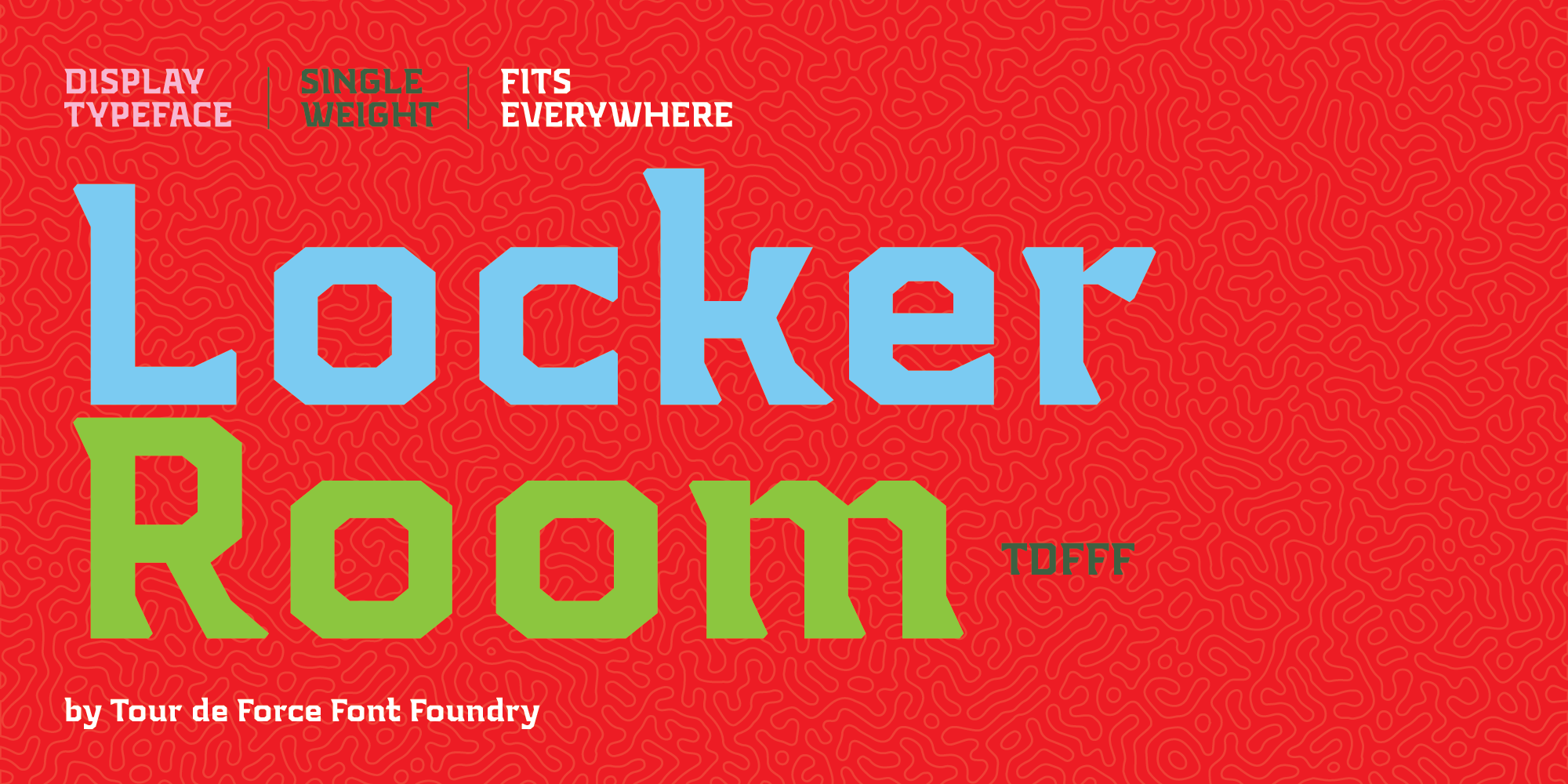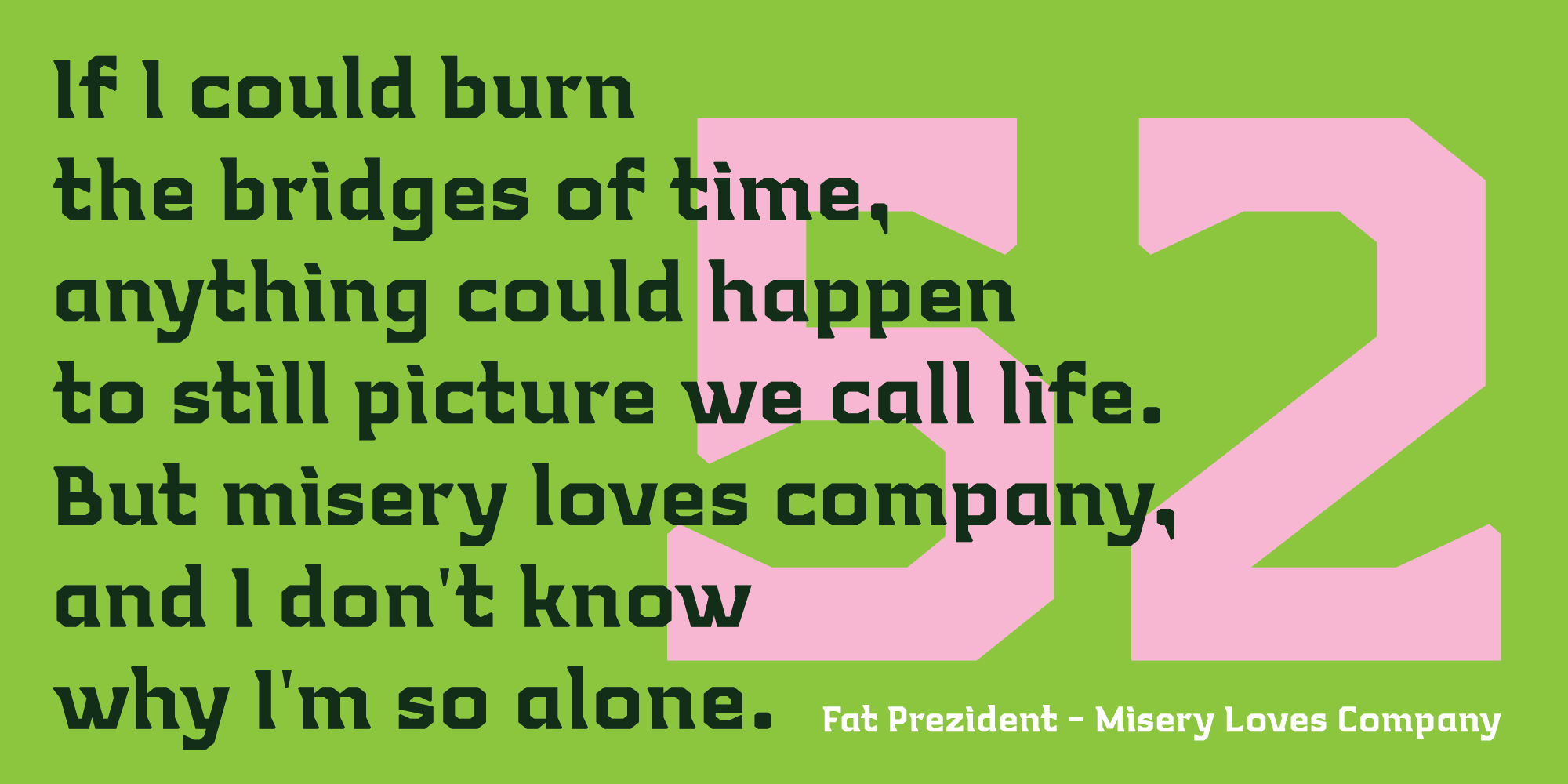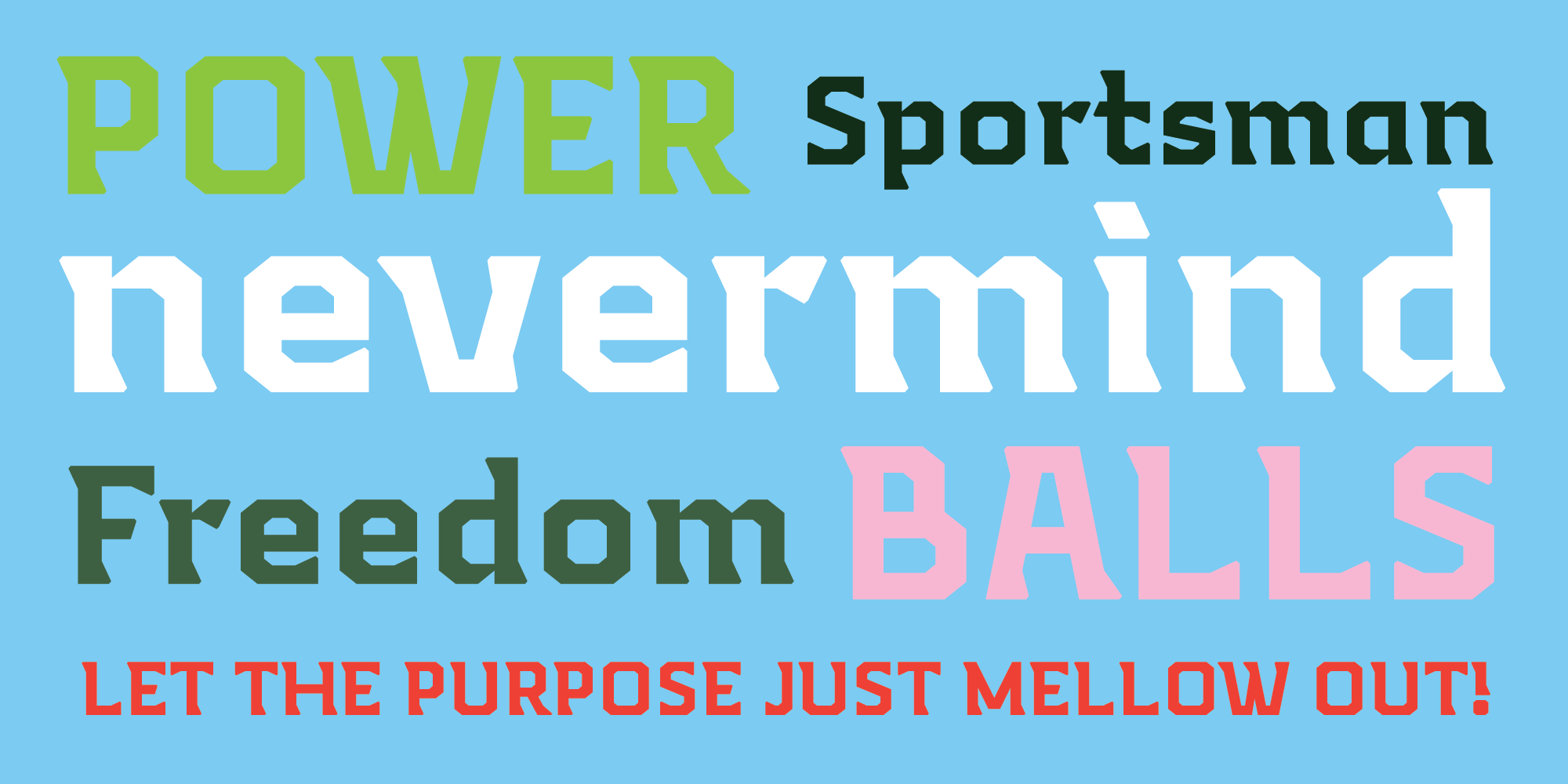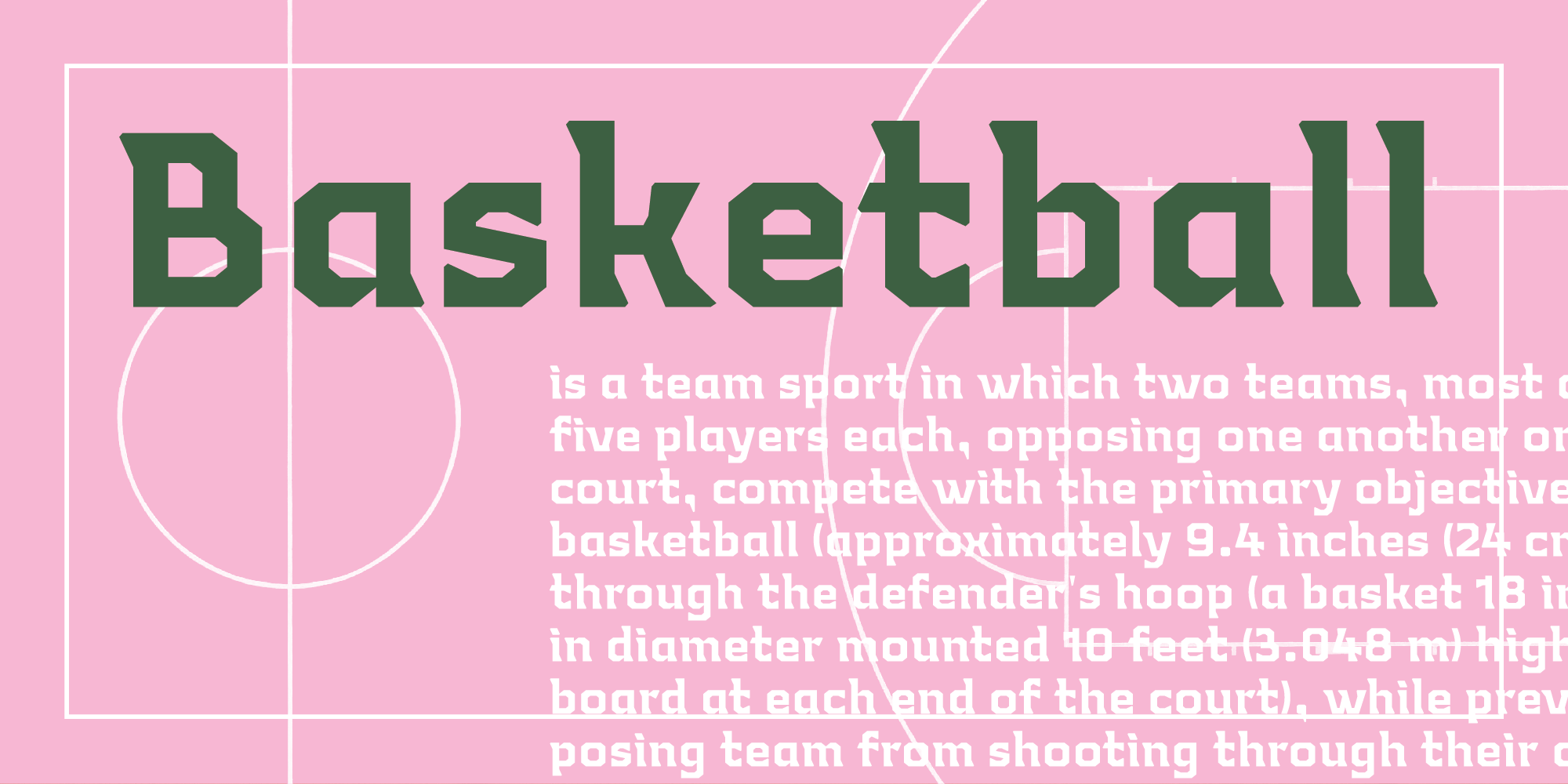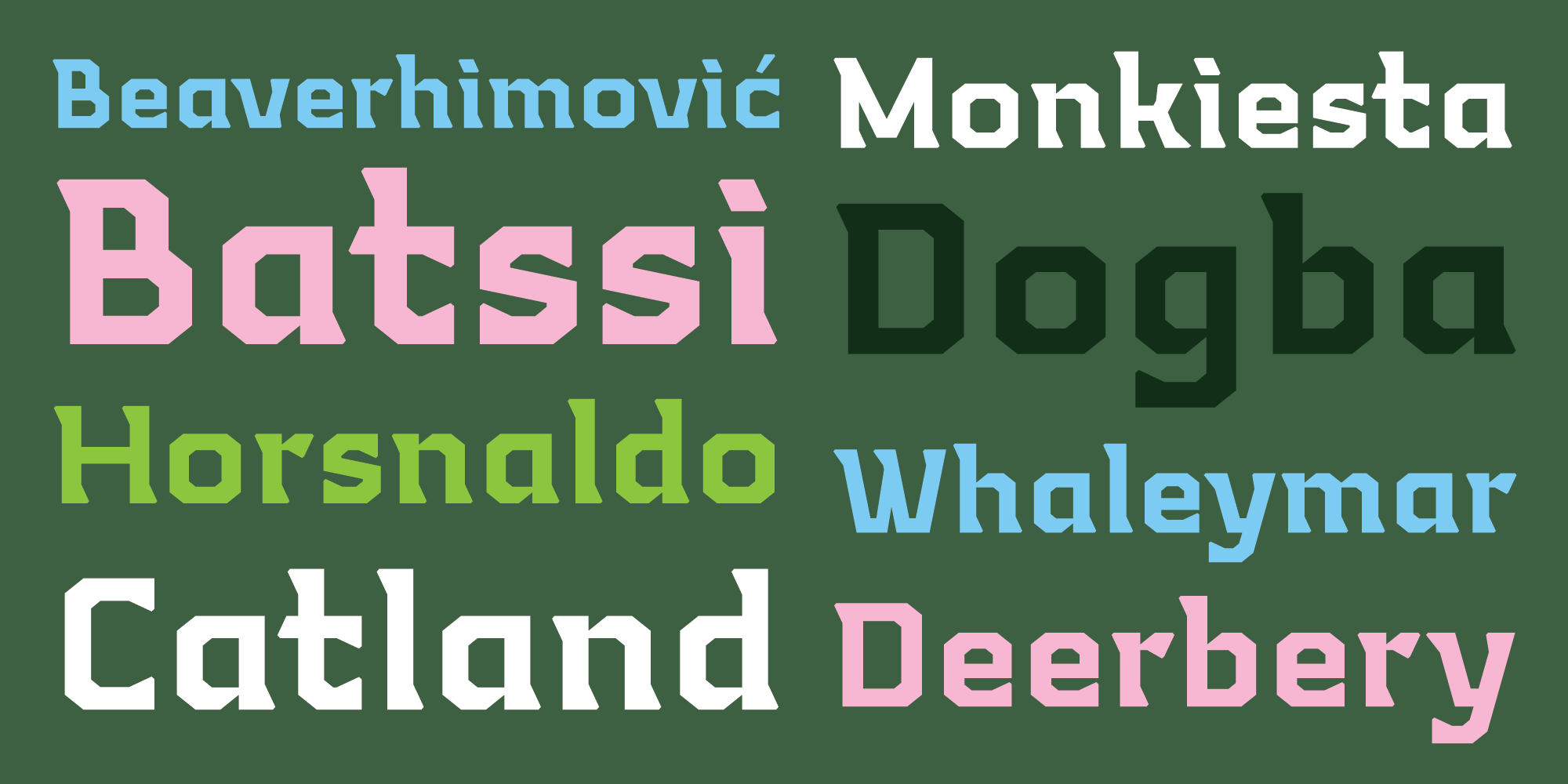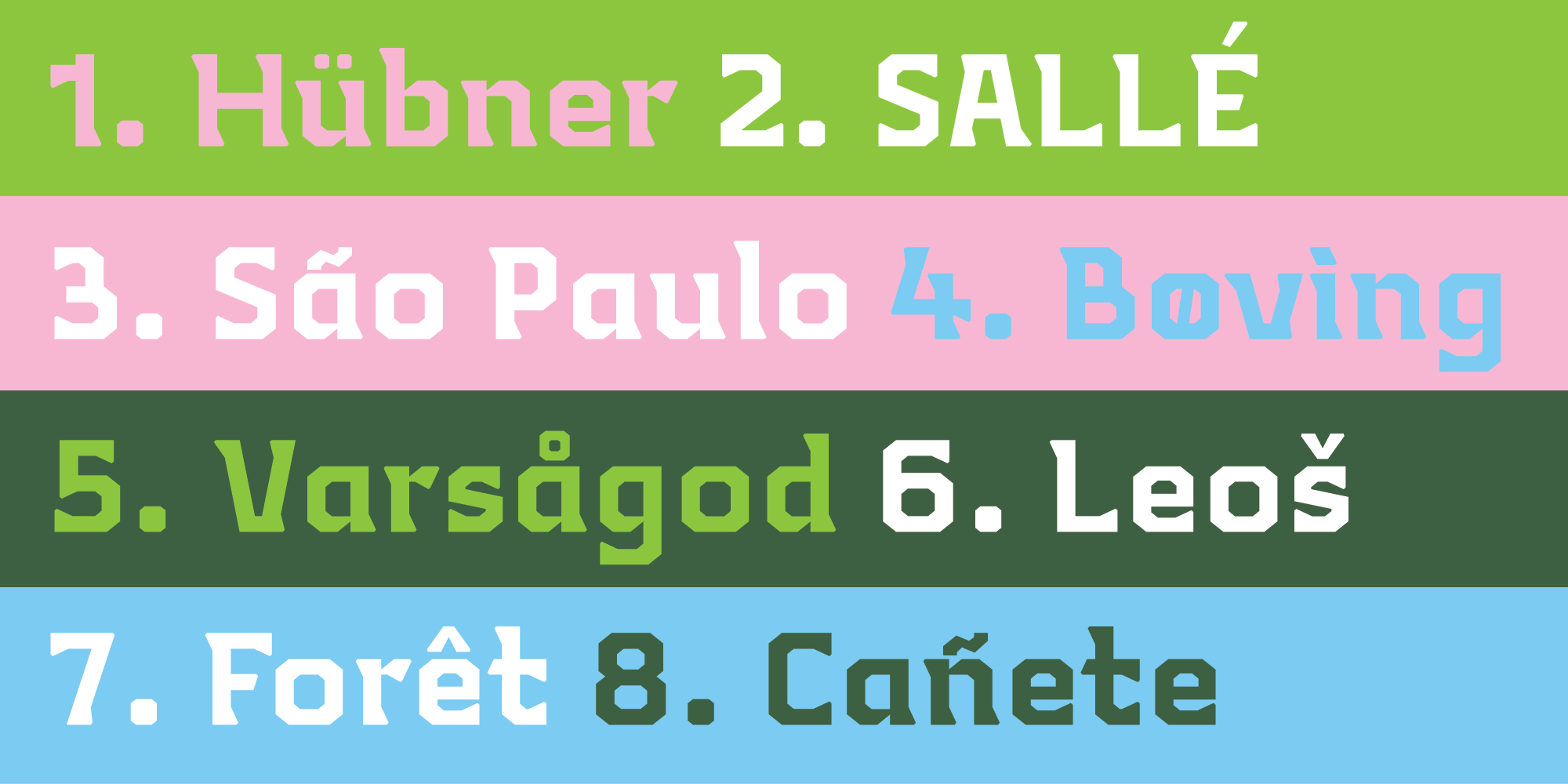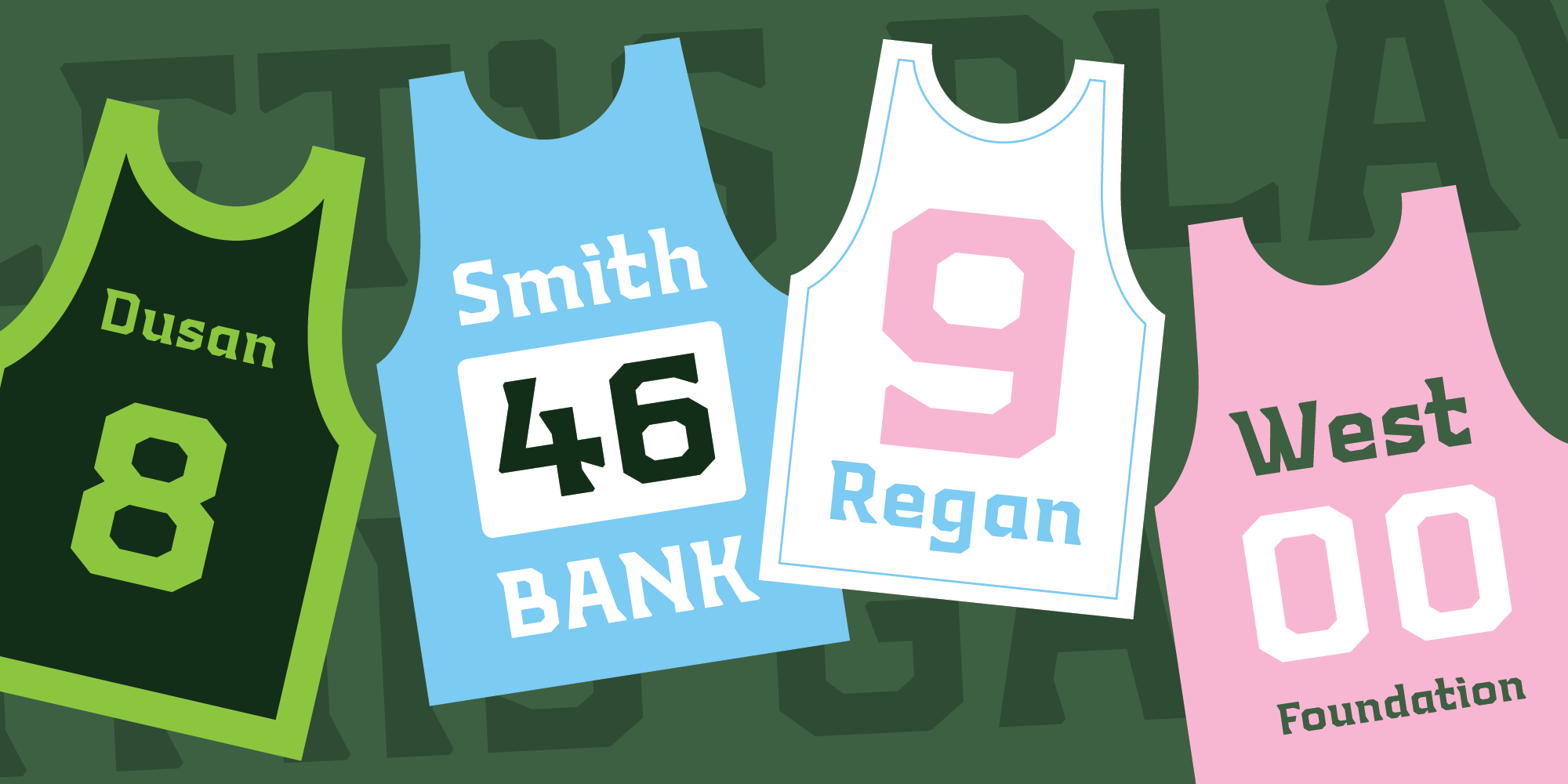
Locker Room is display font available in single weight.
Stable, compact and distinctive by design, Locker Room contains decorative half serifs that gives the font specific charm. It is intended to be used primary as font for sport clubs – from jersey, indoor and outdoor graphic, social network materials to merchandise and video clips. It also fits nicely for beverage and food labels and packages.
Locker Room contains extended Latin character set with standard Ligatures.